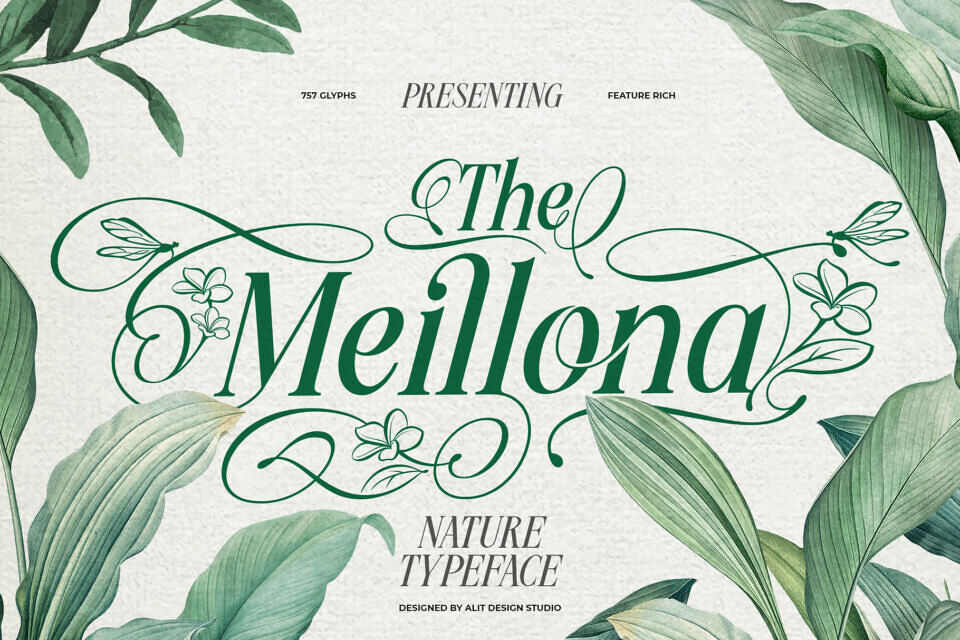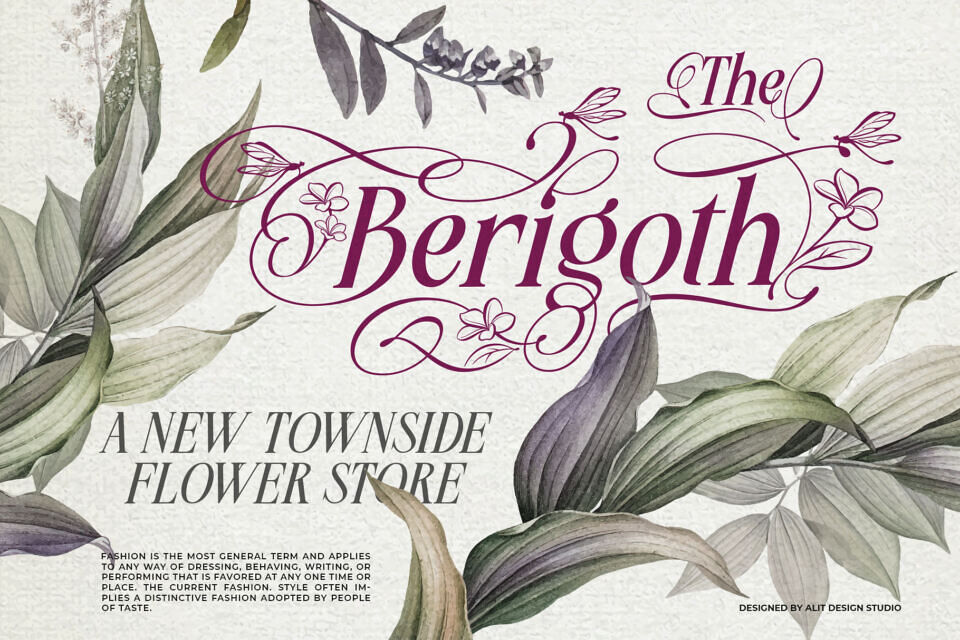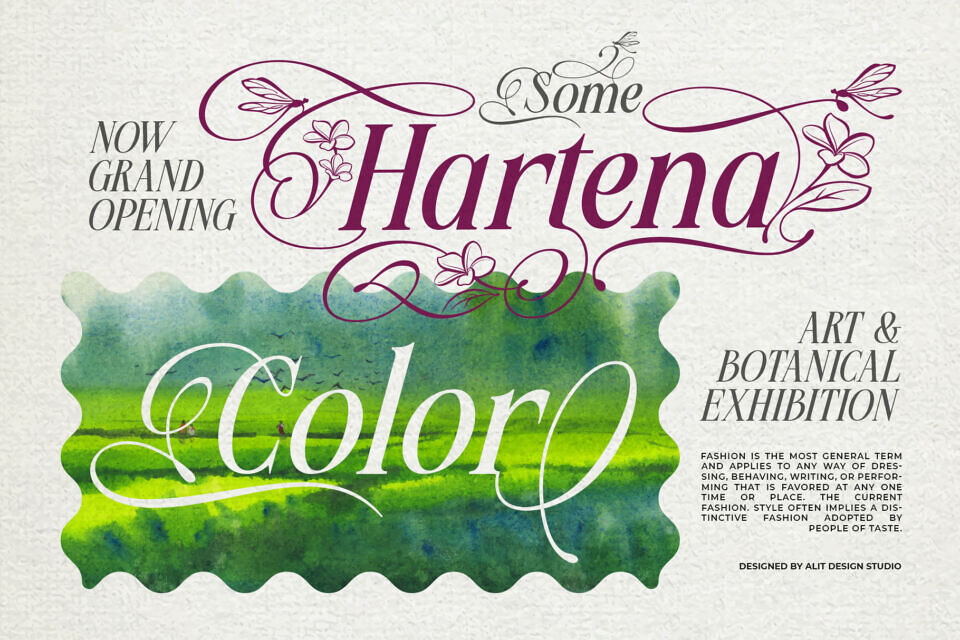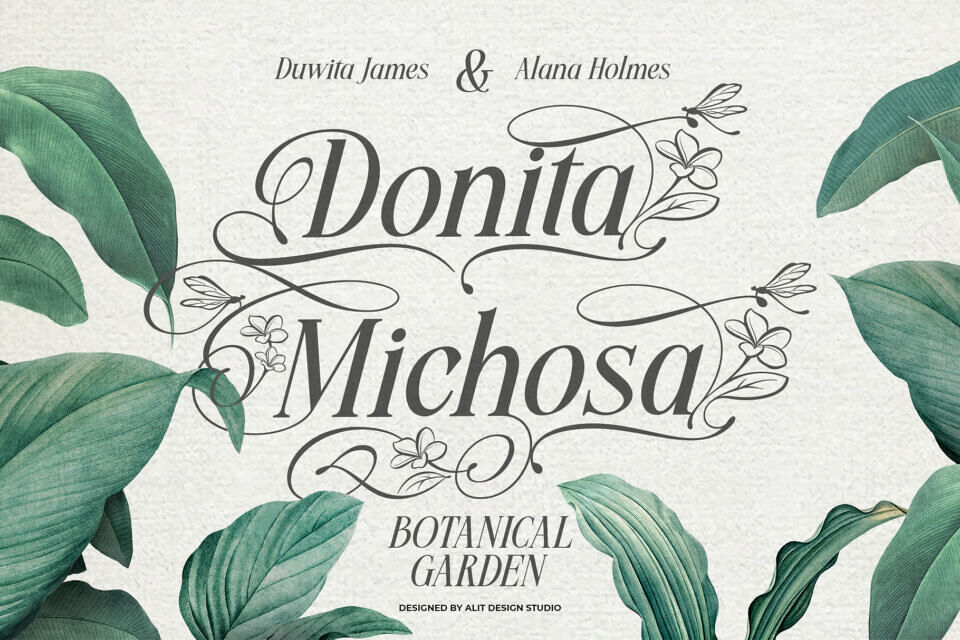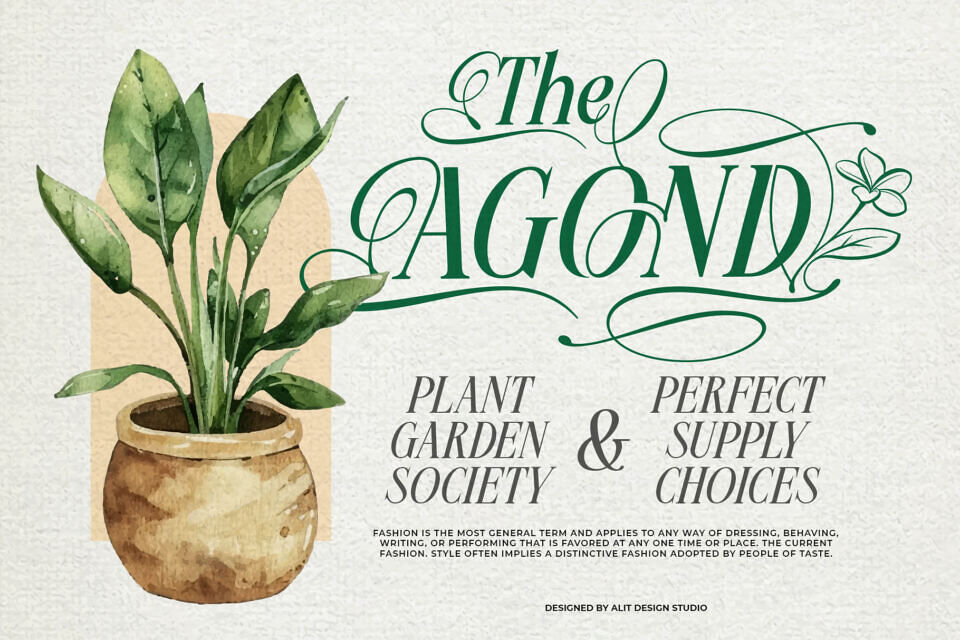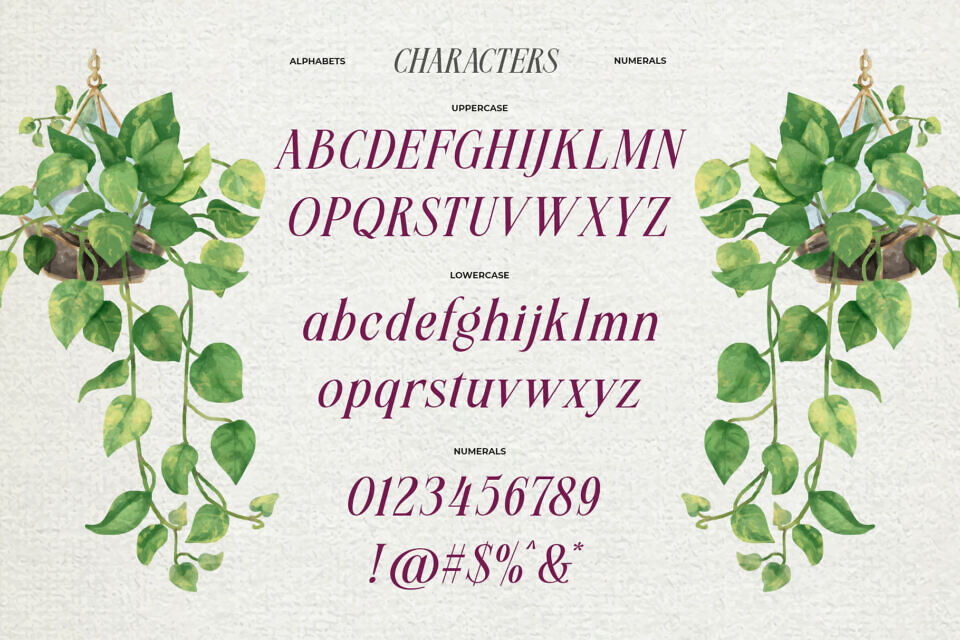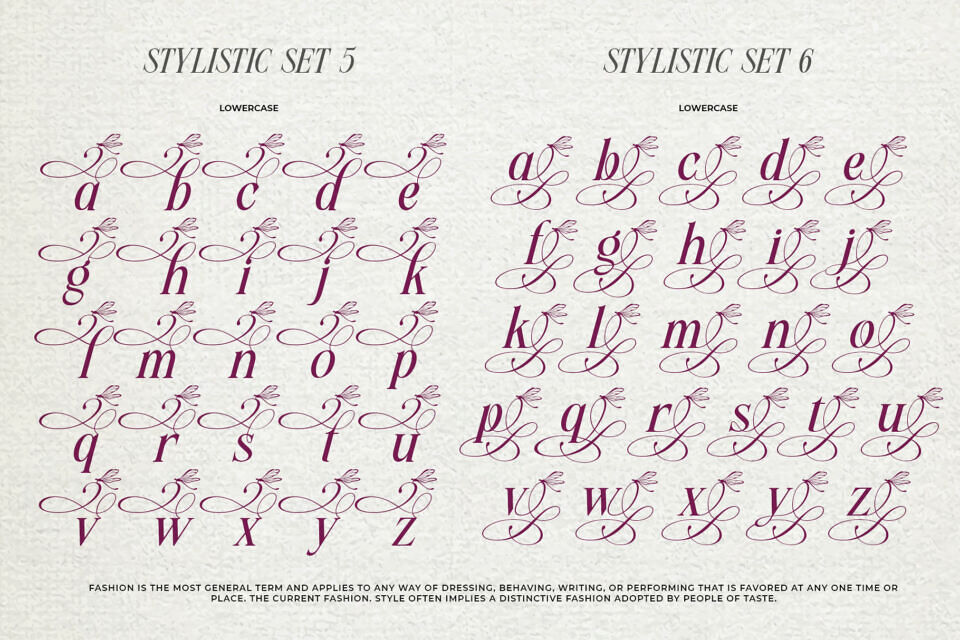
Meillona Font
Meillona is a romantic, slanted serif typeface blending timeless elegance with the organic charm of nature. Featuring over 750 glyphs, it includes beautifully illustrated swashes of flowers, leaves, and dragonflies.
With multiple stylistic sets, you can choose from clean flourishes to intricate botanical elements. Meillona is perfect for branding, weddings, editorials, packaging, and social media, supporting multilingual use. Whether crafting a logo or designing invitations, Meillona adds sophistication and natural beauty to every project.